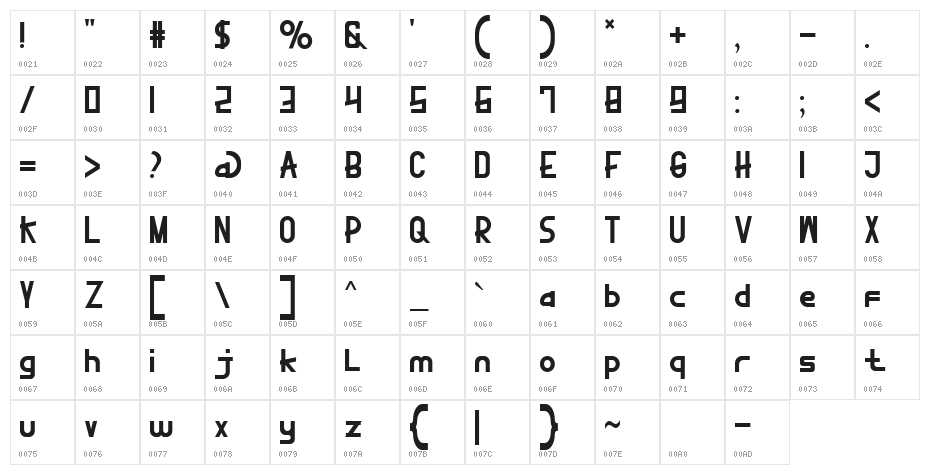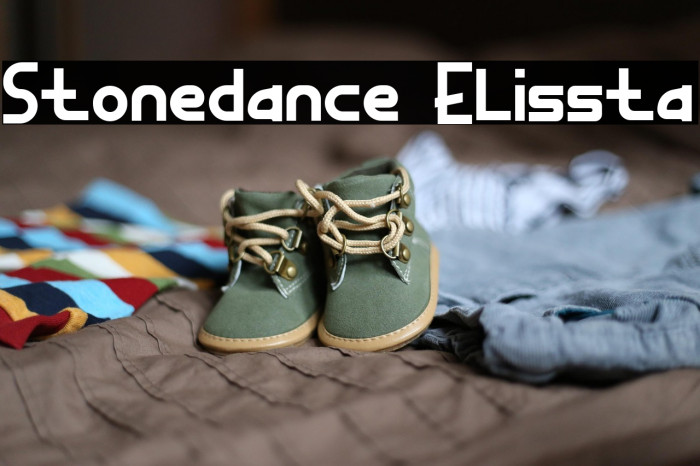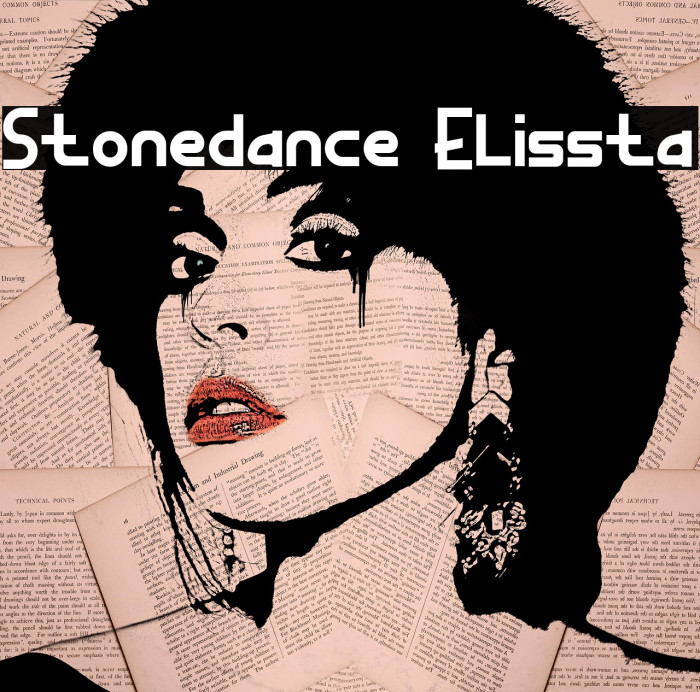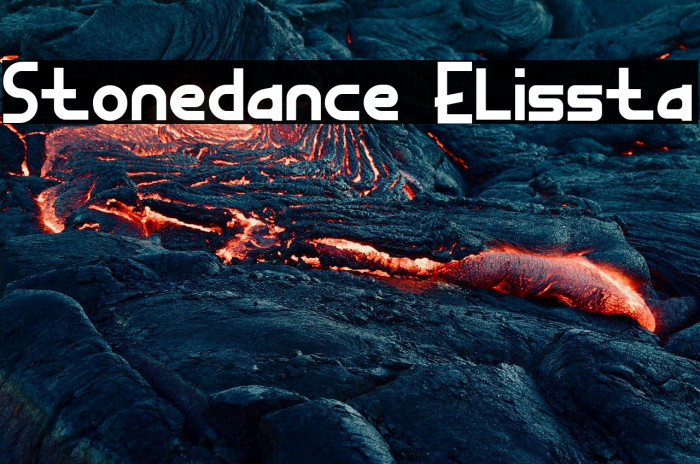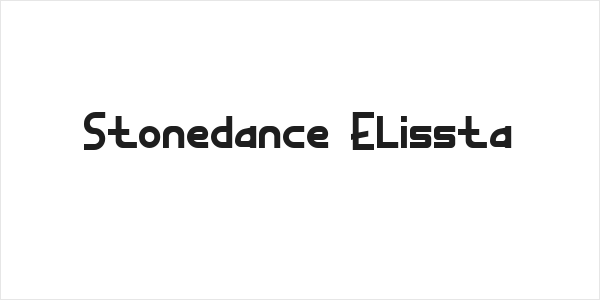
Stonedance Elissta Font
Stonedance Elissta Description
This font features a bold and geometric style with a unique, angular design. The characters are crafted with a modern aesthetic, incorporating sharp edges and a consistent stroke width. The uppercase letters exhibit a strong presence, while the lowercase letters maintain a cohesive look with slightly softer curves. Numbers and special characters follow the same geometric pattern, ensuring uniformity across all glyphs. This font's distinct appearance makes it suitable for eye-catching designs and creative projects.